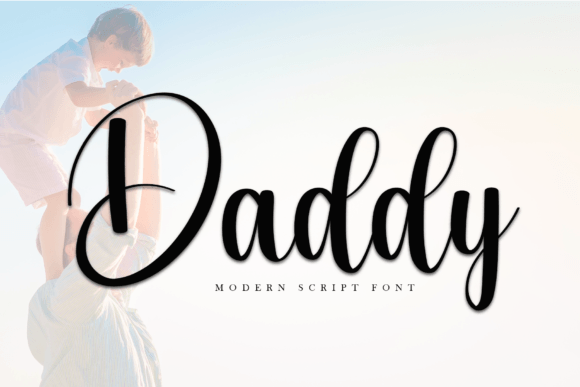
The Perfect Script: Unlocking the Magic of Daddy Font
There’s nothing quite like the rush of creative inspiration, when a spark of an idea suddenly ignites and you can’t wait to bring it to life. For designers, this moment is a thrilling dance between imagination and execution. It’s a chance to breathe personality into a project, to make it truly unforgettable. And for those who crave a touch of elegance and whimsy, there’s one font that stands out from the rest: Daddy Font.
This gorgeous handwritten font is more than just a pretty face – it’s a versatile tool that can elevate any design project. Whether you’re crafting product packaging, designing a magazine cover, or creating social media posts that pop, Daddy Font adds a sweet, handwritten touch that’s impossible to resist. For designers, it’s a valuable asset that can help them stand out in a crowded market and leave a lasting impression on their audience.
Daddy Font Review
Overall, I think Daddy Font is a unique and fun font that can add a personal touch to your designs. ✨ One thing that works well is its quirky, hand-drawn feel. It’s perfect for projects that need a bit of whimsy or personality. The font also comes in a range of weights and styles, making it easy to customize to suit your needs.
Another strength of Daddy Font is its readability. Despite its playful nature, the font is still easy to read, even at smaller sizes. This makes it a great choice for body text or headings.
- ⚠️ Limited character set: Daddy Font is not a full Unicode font, which means it may not support all languages or characters.
- ⚠️ Limited support for bold and italic styles: While Daddy Font does come in a range of weights, the bold and italic styles are not as well-supported as other fonts.
- ⚠️ Not suitable for formal or professional projects: Daddy Font’s playful nature makes it better suited for casual or creative projects, rather than formal or professional ones.
Overall, I think Daddy Font is a fun and quirky font that can add a lot of personality to your designs. While it has some limitations, it’s a great choice for the right project. Just be sure to consider its limitations before using it in your design.
Daddy Font is suitable for a wide range of design projects, including:
- Graphic design (logos, brochures, business cards)
- Web design (websites, blogs, landing pages)
- Print design (posters, flyers, magazines)